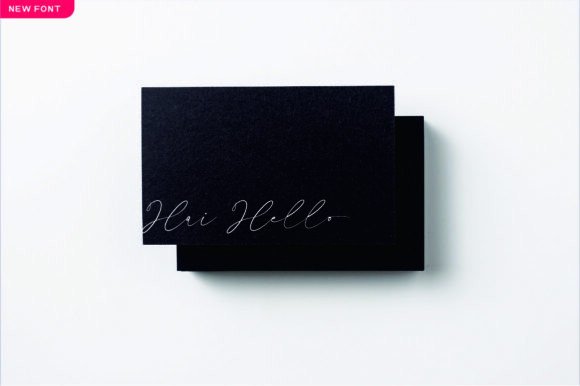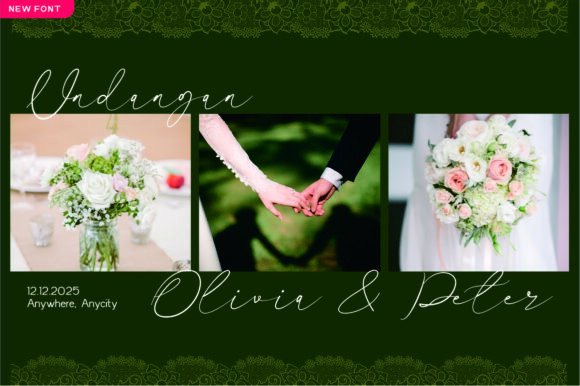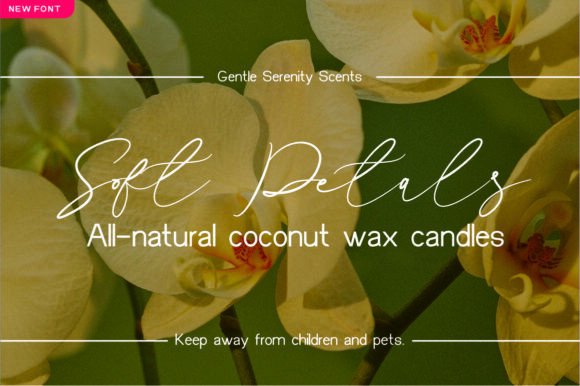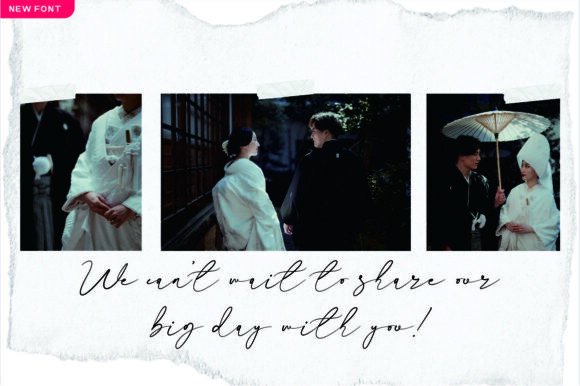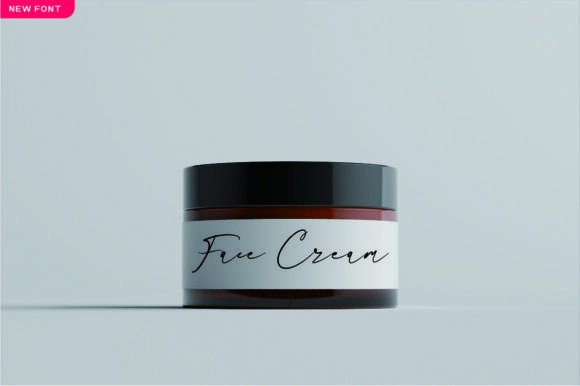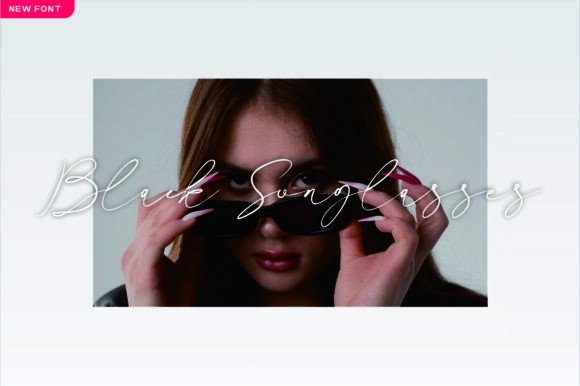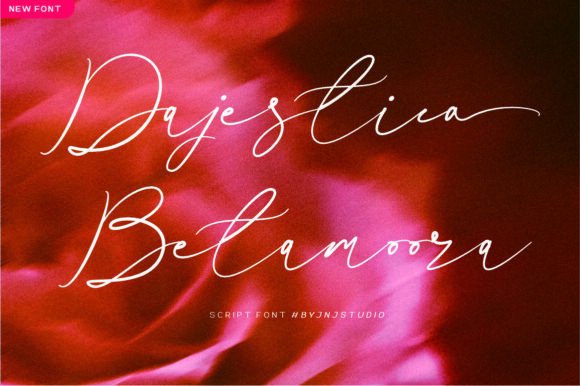
Dajestica Betamoora Font: Elevate Your Designs with Elegant Refinement
In the world of typography, few fonts manage to strike a balance between elegance and expressiveness. Dajestica Betamoora Font is one such exceptional typeface that brings a touch of refined charm to any design project. With its smooth, flowing curves and delicate strokes, this font embodies the sophistication of handwriting while maintaining a personal, handcrafted feel.
The Artistry of Dajestica Betamoora
Dajestica Betamoora is more than just a font – it’s an artistic statement. Each letter is carefully shaped to create a harmonious rhythm, making it perfect for designs that require a touch of grace. Whether you’re working on branding, invitations, editorial designs, or creative projects, this font is sure to elevate your work to new heights.
One of the standout features of Dajestica Betamoora is its balanced contrast between thick and thin lines. This thoughtful design element enhances readability while preserving the font’s ornamental beauty. The result is a typeface that is both visually stunning and highly legible, making it ideal for a wide range of applications.
Crafting a Sense of Sophistication
In today’s fast-paced digital landscape, it’s easy to get lost in a sea of generic fonts. Dajestica Betamoora offers a refreshing alternative, bringing a sense of sophistication and refinement to any design project. Its elegant curves and delicate strokes evoke a sense of luxury and high-end quality, making it perfect for:
- Branding: Create a lasting impression with a custom logo or typography that exudes elegance and refinement.
- Invitations: Add a touch of sophistication to your wedding invitations, event announcements, or formal gatherings.
- Editorial Designs: Elevate your magazine or newspaper layouts with a font that commands attention and respect.
- Creative Projects: Bring a sense of artistry to your creative endeavors, whether it’s a photography project, a fashion editorial, or a graphic design piece.
The Benefits of Dajestica Betamoora
So why choose Dajestica Betamoora Font for your next design project? Here are just a few benefits you can expect:
- Elegant and Expressive: Dajestica Betamoora brings a touch of refined charm to any design project, making it perfect for creative endeavors that require a sense of sophistication.
- Highly Legible: The font’s balanced contrast between thick and thin lines ensures that your text is easy to read, even at smaller sizes.
- Versatile: Dajestica Betamoora is suitable for a wide range of applications, from branding and invitations to editorial designs and creative projects.
- Handcrafted Feel: The font’s delicate strokes and smooth curves evoke a sense of handwriting, adding a personal touch to your designs.
In conclusion, Dajestica Betamoora Font is an exceptional typeface that offers a perfect blend of elegance, expressiveness, and readability. Whether you’re a designer, craftsperson, or simply someone who appreciates the art of typography, this font is sure to inspire your creativity and elevate your designs to new heights. With its smooth curves, delicate strokes, and balanced contrast, Dajestica Betamoora is the perfect choice for anyone looking to add a touch of sophistication and refinement to their work.